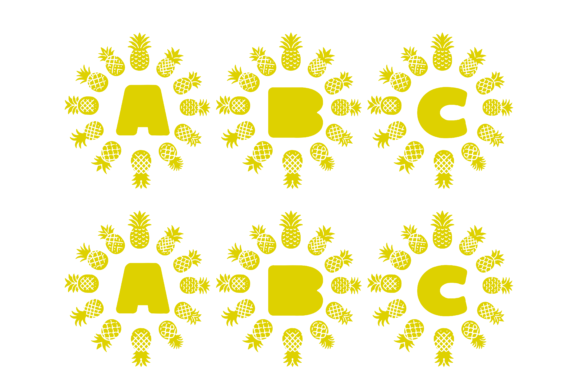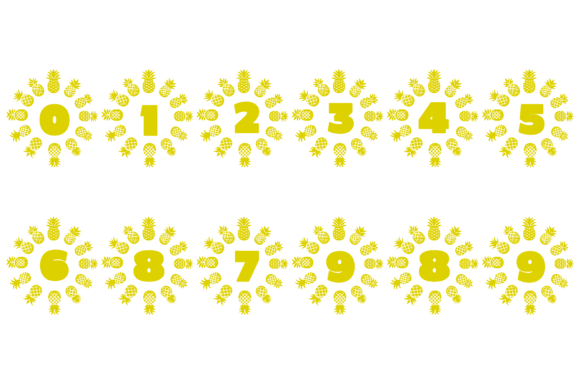
Introduction to Pineapple Monogram Font
Discover the world of whimsical design with Pineapple Monogram, a decorative font brimming with youthful charm.
Let this delightful typography bring authenticity into your artistry, setting the stage for infinite creative possibilities Infuse a spirit of happiness into all your ventures with Pineapple Monogram, a font bursting with endless variants, reveaing a world of enchantment with every keystroke.
Key Features of Pineapple Monogram Font
Why Choose Pineapple Monogram Font?
Pineapple Monogram Font offers exceptional quality and versatility, making it a valuable addition to your design toolkit. Whether you’re creating for personal projects or commercial use, Pineapple Monogram Font delivers professional results.